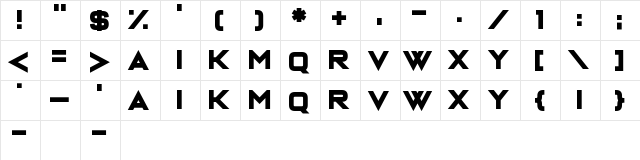
Dispence Regular
| Designer | NAL |
Design Context for Dispence Typeface
Dispence offers clean, dependable letterforms without strong stylistic allegiance, making it a practical choice for designers who need flexibility.